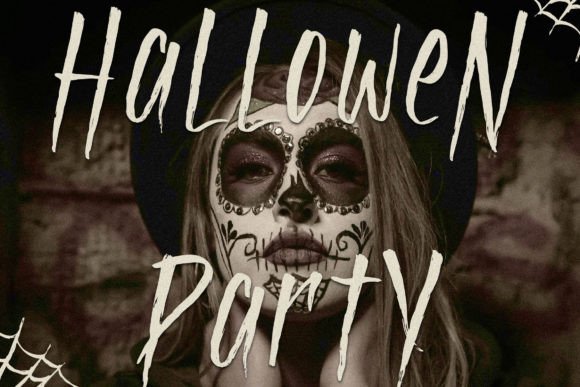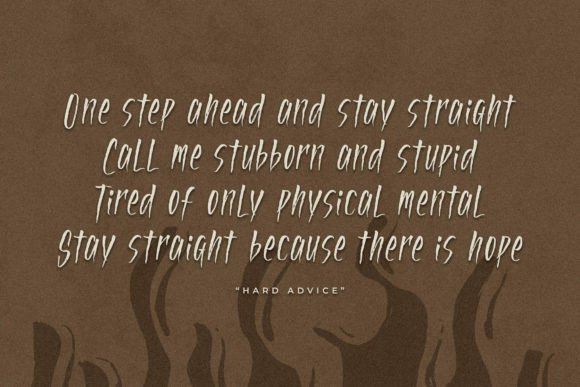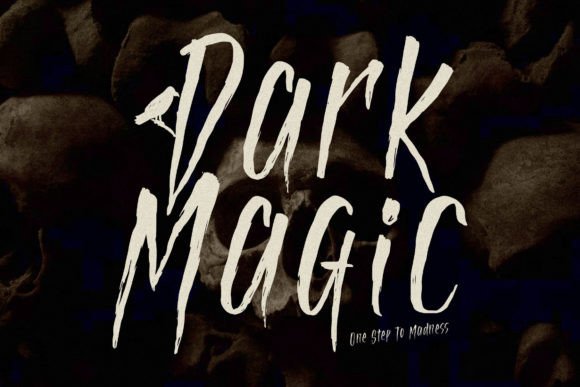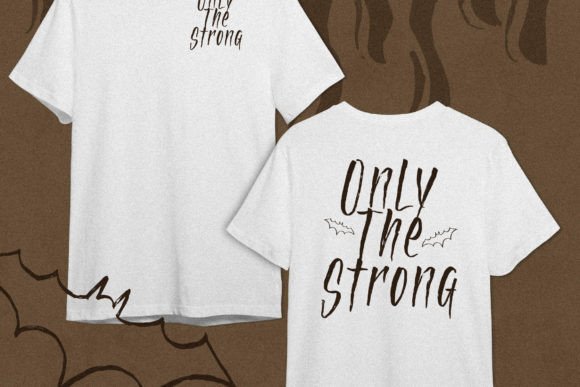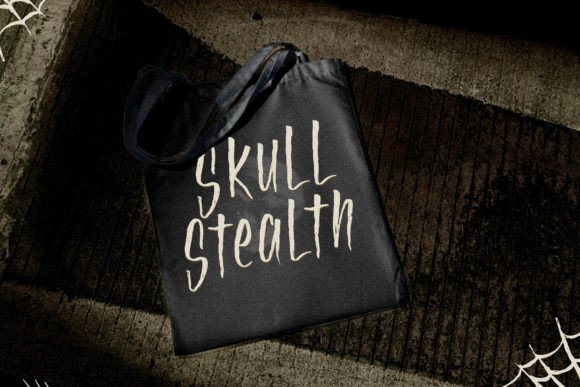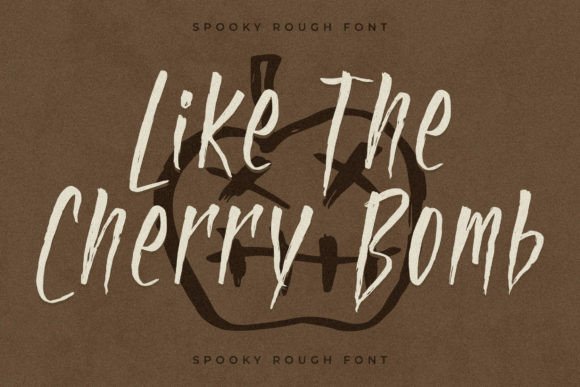
Introduction to Skull Stealth Font
Imagine you’re brainstorming ideas for a client’s latest project, and you stumble upon the perfect combination of spooky and elegant – a font that exudes mystery and sophistication. As a designer, you know that the right font can make all the difference in bringing your creative vision to life. That’s where Skull Stealth Font comes in – a high-quality, free download that’s perfect for any project that requires a touch of the macabre.
Whether you’re working on logos, branding projects, or product packaging, Skull Stealth Font is an excellent choice. Its unique design and transparent background make it easy to use and customize, allowing you to focus on the creative aspects of your project. As a valuable resource for designers, Skull Stealth Font is a must-have in your design arsenal.
Key Features of Skull Stealth Font
- Unique, edgy design ideal for creative projects and bold typography.
- Comes with a transparent background, allowing for seamless integration into any design resource.
- High-resolution design, suitable for use in print and digital media at 300 DPI.
- Features a bold, gothic-inspired skull design with intricate details and textures.
- Perfect for use in graphic design, tattoo design, or any other creative project requiring a bold, eye-catching font.
Honest Review: Skull Stealth Font
I recently stumbled upon the Skull Stealth Font and I have to say, it’s a game-changer for my creative projects. As a designer, I’m always on the lookout for high-quality fonts that can elevate my work, and this one definitely delivers.
What works well: ✨ The Skull Stealth Font has a unique, edgy design that’s perfect for projects that need a bold, daring feel. The transparent background makes it easy to layer over other elements and create a seamless look. The font is also highly customizable, with a range of sizes and styles to choose from.
Here are some of the key features I love about the Skull Stealth Font:
- Customizable sizes and styles
Limitations: ⚠️ While the Skull Stealth Font is generally well-designed, I did find that the font can be a bit too bold for some projects. It’s also not suitable for projects that require a more subtle, elegant look.
Overall, I’m really impressed with the Skull Stealth Font. It’s a great addition to any designer’s toolkit, and I highly recommend it for anyone looking for a high-quality, unique font for their creative projects.
The Skull Stealth Font is a unique design resource perfect for adding a touch of edginess to your creative project. With its sleek and modern design, this font is ideal for various applications, from logos to posters.
Tips for Getting the Most Out of the Skull Stealth Font
Here are some tips to help you get the most out of the Skull Stealth Font:
- Use the font in combination with a transparent background to create a striking design.
- Use the font in a creative project, such as a logo or poster, to add a touch of edginess.
Common Use Cases for the Skull Stealth Font
The Skull Stealth Font is perfect for various use cases, including:
- Use the Skull Stealth Font as the main title font for the poster.
- Combine the font with a transparent background to give it a haunting effect.
- Experiment with different color combinations to find the perfect balance of edginess and sophistication.
- Pair the Skull Stealth Font with a bold, graffiti-style font for a contrasting effect.
- Use a high-quality image with a transparent background to add depth and texture to the design.